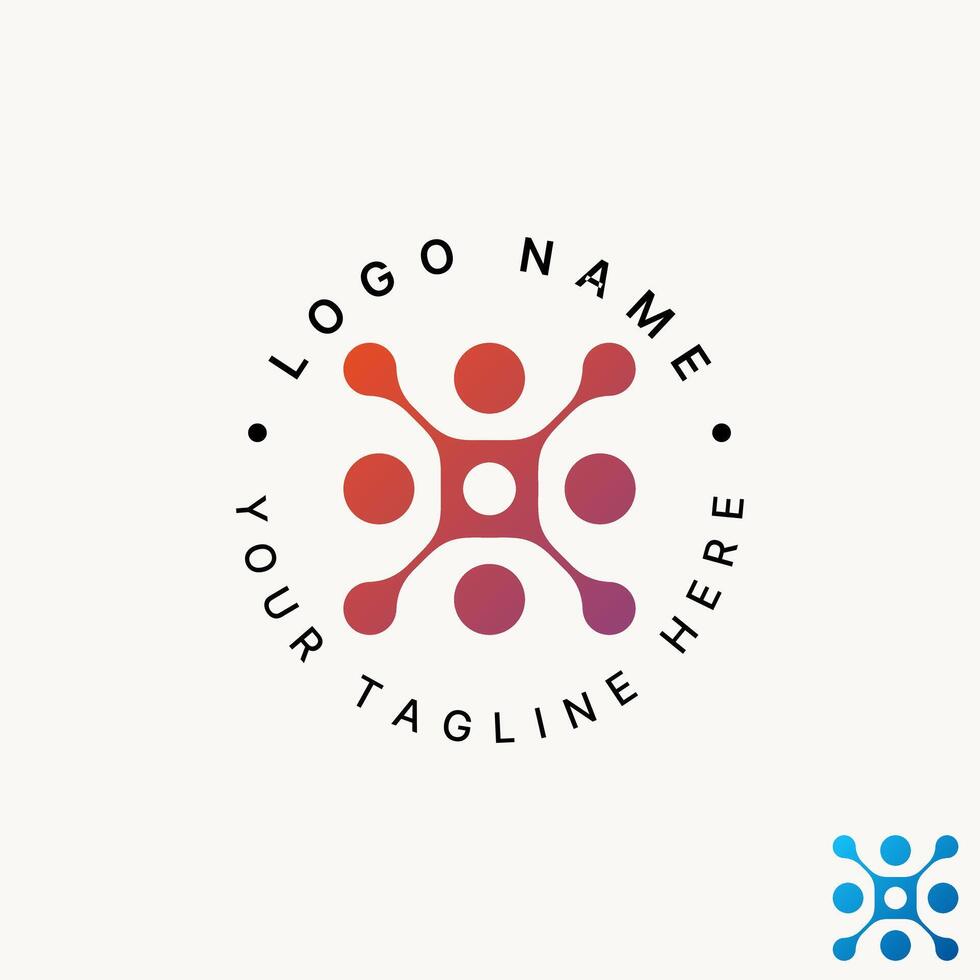
Logo design graphic concept creative premium stock X font star dots tech dynamic particle digital. Related to technology circular atom branding Pro Vector